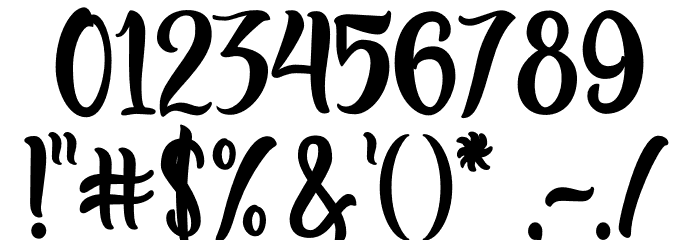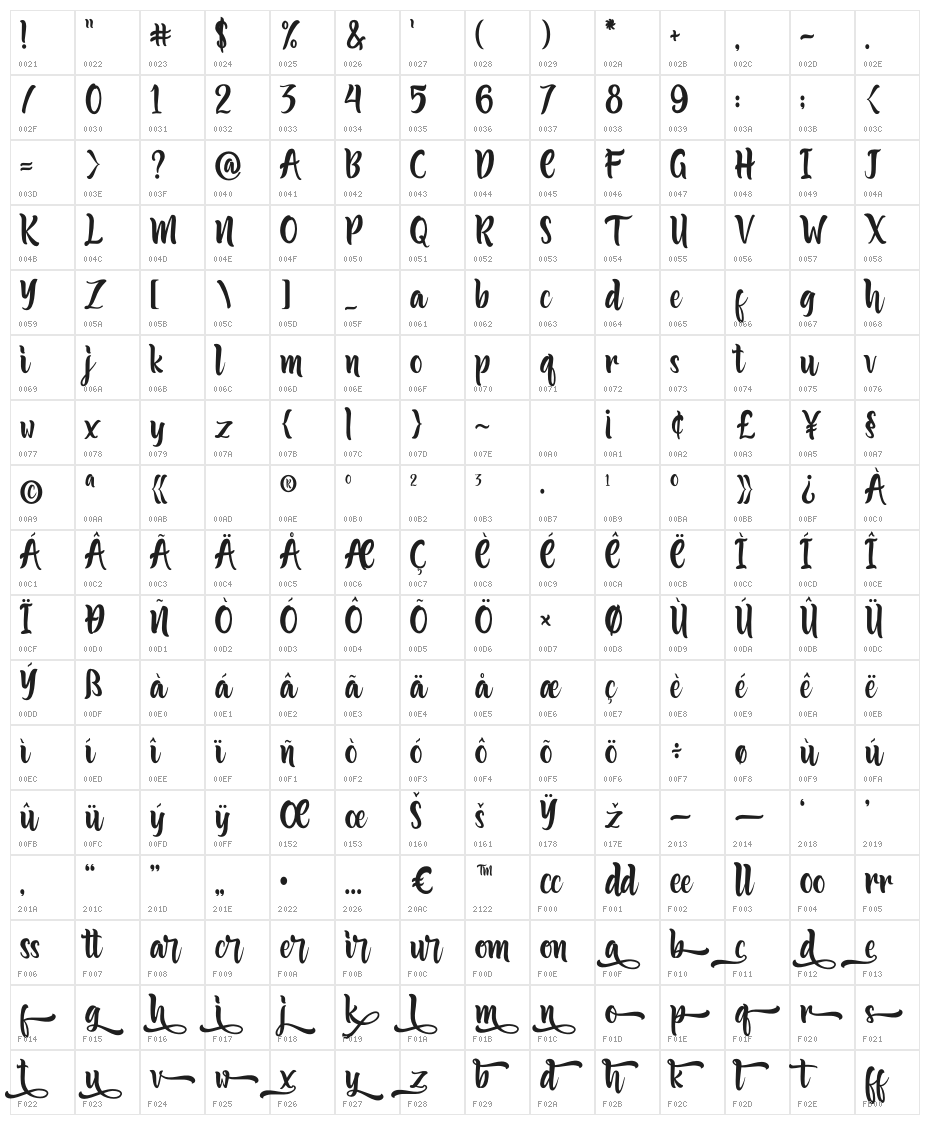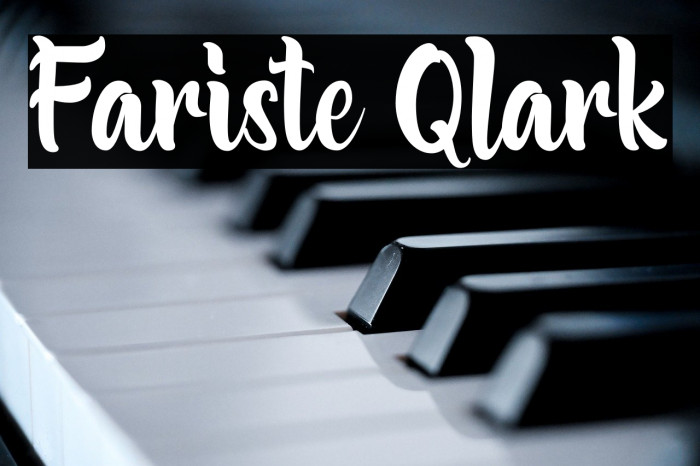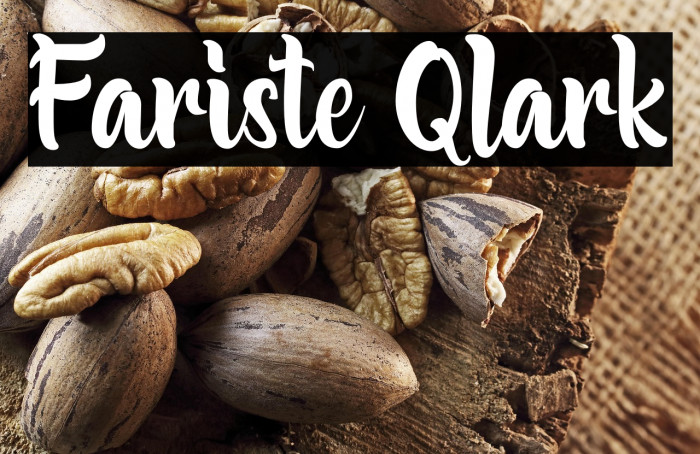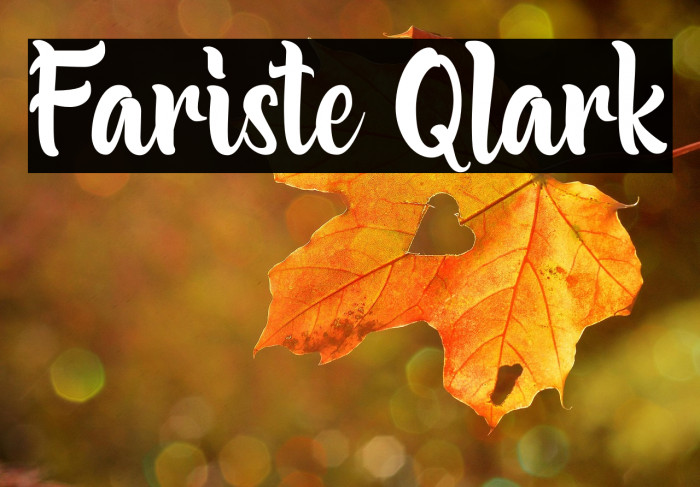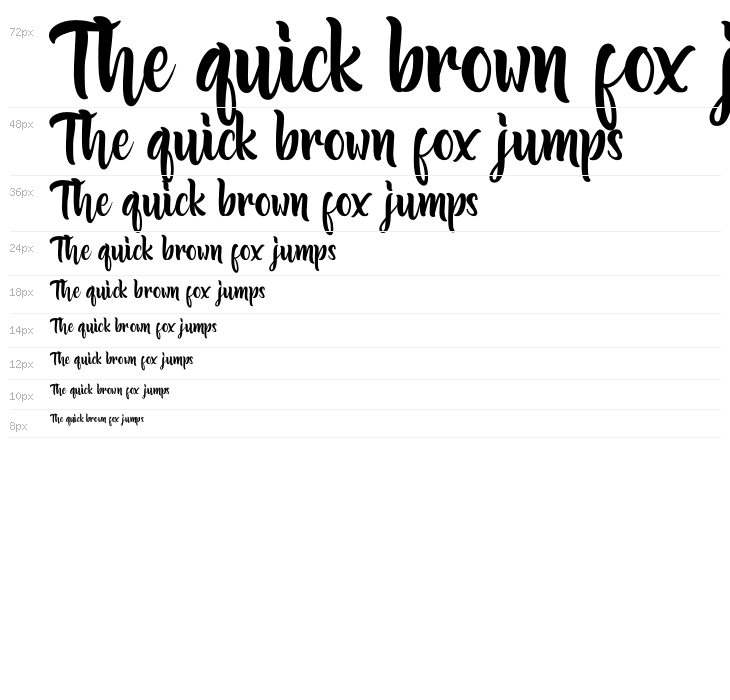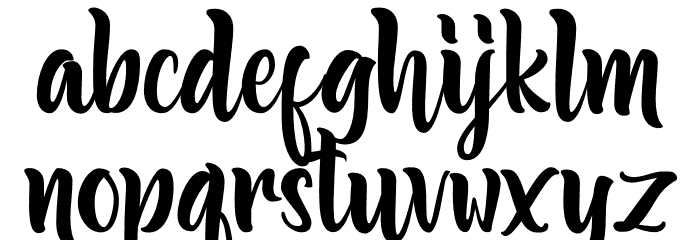
Fariste Qlark Font
Fariste Qlark Description
This font features a bold and expressive handwritten style, characterized by its fluid and dynamic strokes. The uppercase and lowercase letters exhibit a playful and artistic flair, with varying stroke widths that add a sense of movement and energy. The numerals and special characters maintain this lively aesthetic, making the font suitable for creative and informal applications. Its bold presence and unique style make it stand out, while the slightly irregular character shapes contribute to its handcrafted feel. This font is perfect for projects that require a personal touch and a sense of creativity.
| Proposed Projects | Ideal for greeting cards, posters, branding, and social media graphics. |